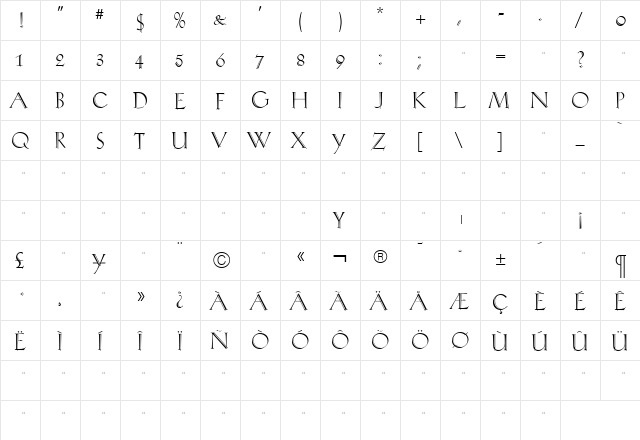
RivoliInitials Roman
Design Context for RivoliInitials Typeface
RivoliInitials takes a measured approach to typography — its balanced proportions and neutral character make it a reliable workhorse for both digital and print work.
Pro Tip: Use RivoliInitials in both headline and body roles to test its range before committing to a single application.